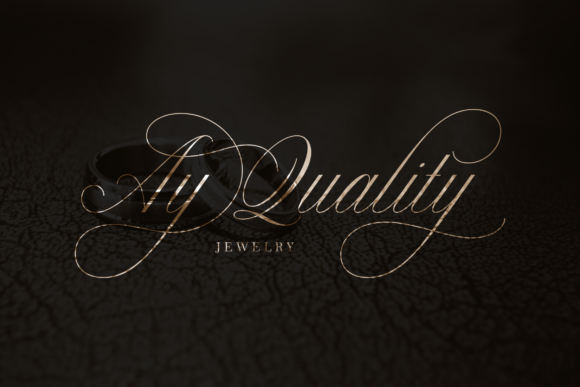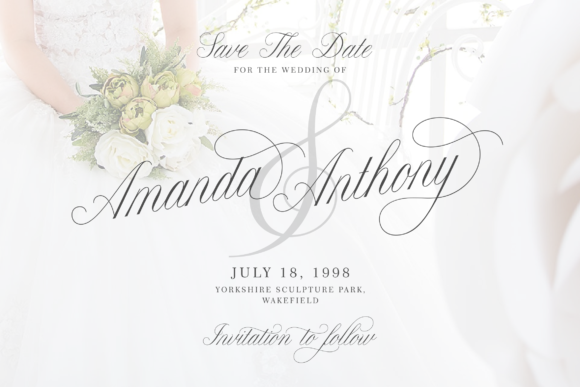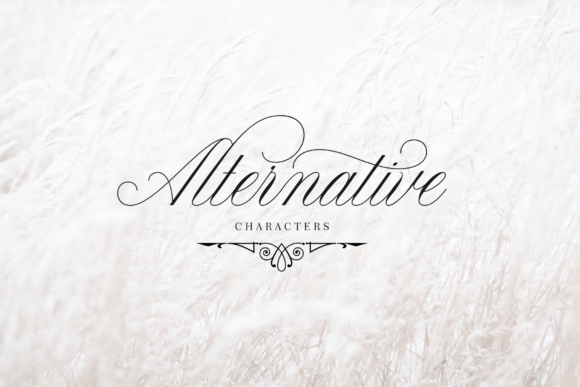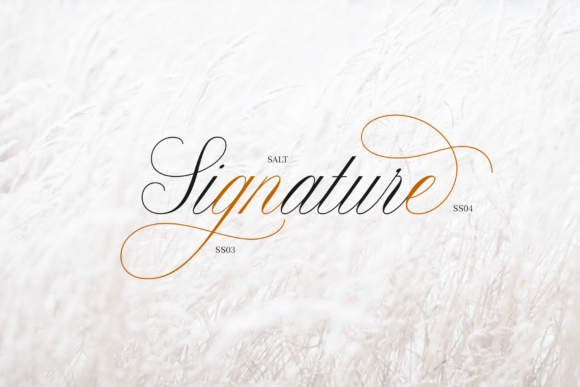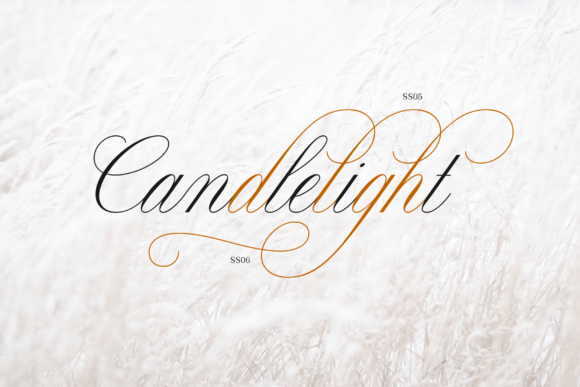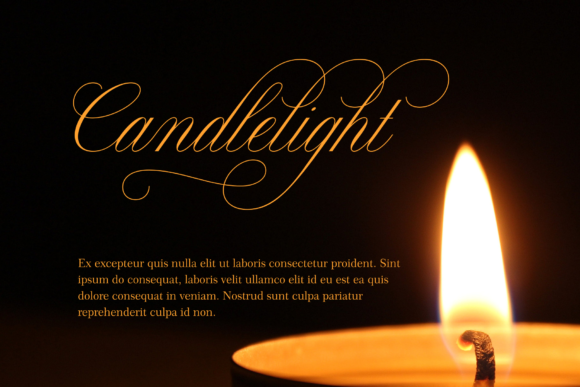
Discover the Elegance of Claudya Font: A Beautiful and Feminine Script
In the world of typography, fonts play a crucial role in conveying the tone and personality of a design. For designers and crafters looking for a script that exudes elegance and femininity, Claudya Font is an excellent choice. This stunning script is not only beautiful but also highly versatile, making it perfect for a wide range of design projects.
What Makes Claudya Font Special?
Claudya Font is a beautiful and feminine script that stands out for its elegant and flowing lines. This script is equipped with alternate characters, which makes the possibilities of design more varied and unique. The inclusion of alternate characters allows designers to add a personal touch to their work, creating a distinctive look that sets their designs apart.
Key Features of Claudya Font
- Feminine and Elegant Design: Claudya Font boasts a delicate and sophisticated design, making it ideal for projects that require a touch of elegance.
- Alternate Characters: The font comes with a range of alternate characters, providing designers with the flexibility to create unique and customized designs.
- High Versatility: Claudya Font can be used for a variety of design projects, including wedding invitations, branding, packaging, and more.
- Easy to Read: Despite its elegant and cursive nature, Claudya Font remains highly legible, making it suitable for both headings and body text.
Uses of Claudya Font
Claudya Font’s versatility makes it suitable for a wide range of design applications. Here are some popular uses of this beautiful script:
- Wedding and Event Invitations: Add a touch of elegance to your wedding or event invitations with Claudya Font.
- Branding and Packaging: Use Claudya Font to create a sophisticated brand identity that stands out from the competition.
- Stationery and Greeting Cards: Create beautiful and personalized stationery and greeting cards with Claudya Font.
- Digital and Print Media: Claudya Font can be used for digital and print media, including magazines, brochures, and social media graphics.
Tips for Using Claudya Font Effectively
To get the most out of Claudya Font, here are some tips to keep in mind:
- Pair with Complementary Fonts: Pair Claudya Font with complementary fonts to create a harmonious and visually appealing design.
- Experiment with Alternate Characters: Take advantage of Claudya Font’s alternate characters to add a personal touch to your designs.
- Use for Headings and Titles: Use Claudya Font for headings and titles to add a touch of elegance and sophistication to your designs.
Claudya Font is a beautiful and feminine script that offers a unique blend of elegance and versatility. With its alternate characters and high legibility, Claudya Font is perfect for designers and crafters looking to add a touch of sophistication to their designs. Whether you’re working on a wedding invitation, branding project, or digital media, Claudya Font is an excellent choice.
So, why not give Claudya Font a try? With its stunning design and versatile features, it’s sure to become a favorite in your design arsenal.